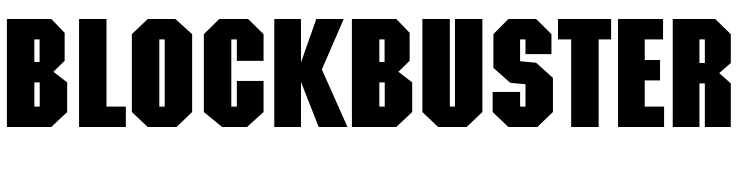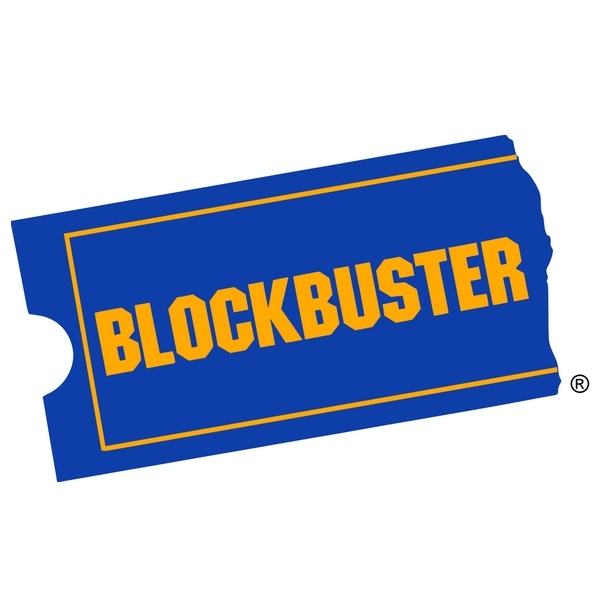
Blockbuster Font
EntertainmentBlockbuster was a popular home movie and video game provider in the 90s and early 2000s. The company offered rental and purchase options for a wide range of movies, games, and accessories.
The Blockbuster logo is likely written in ITC Machine Bold, a striking and industrial font created by Ronne Bonder and Tom Carnase in 1970. Further information on the font is available here.